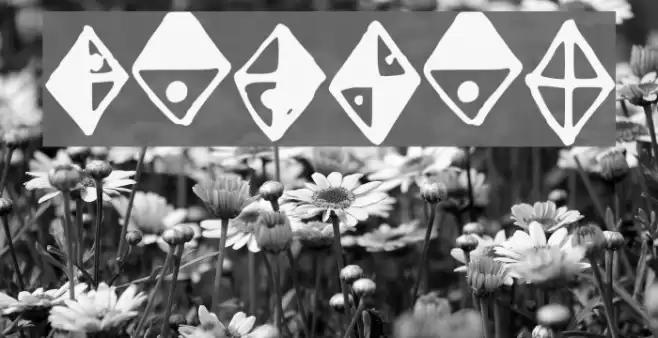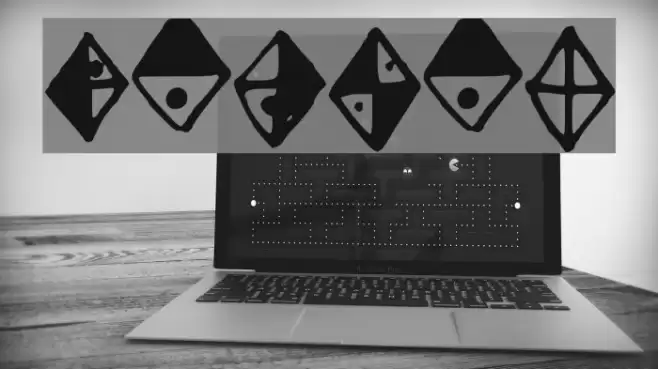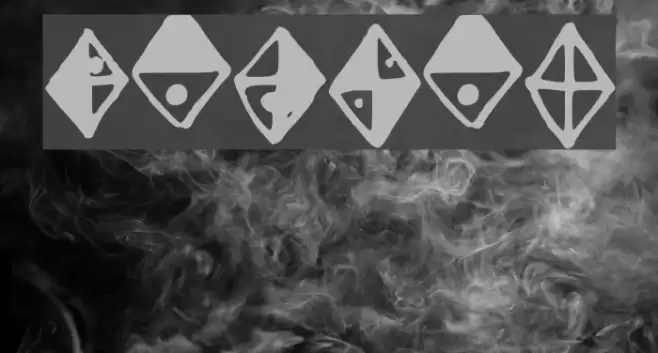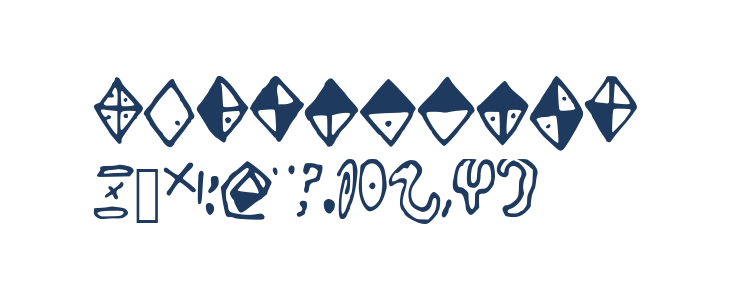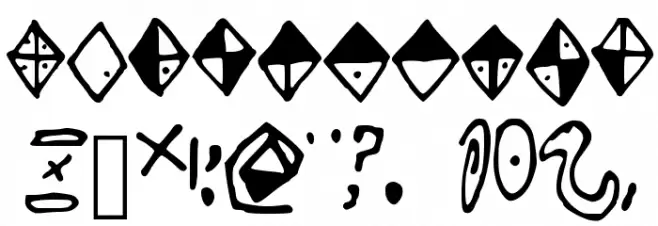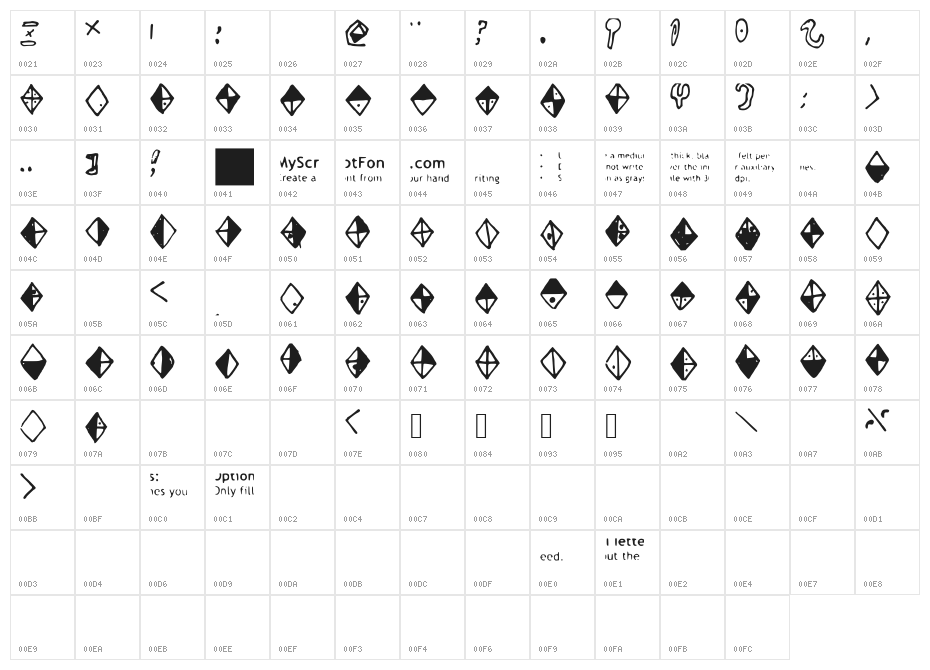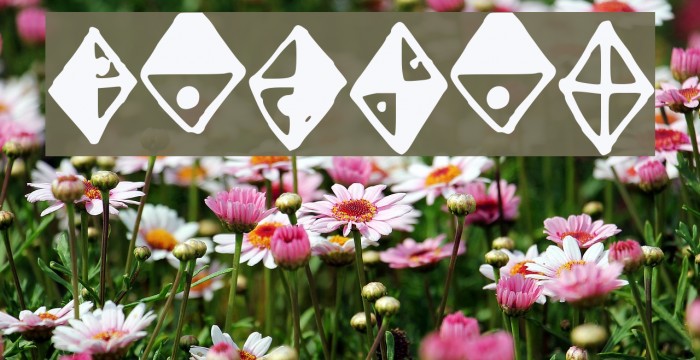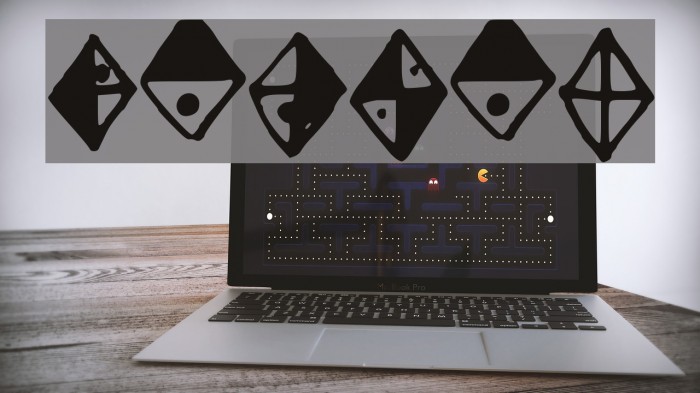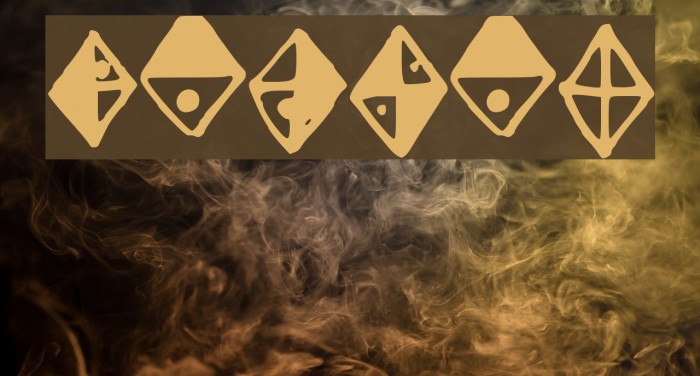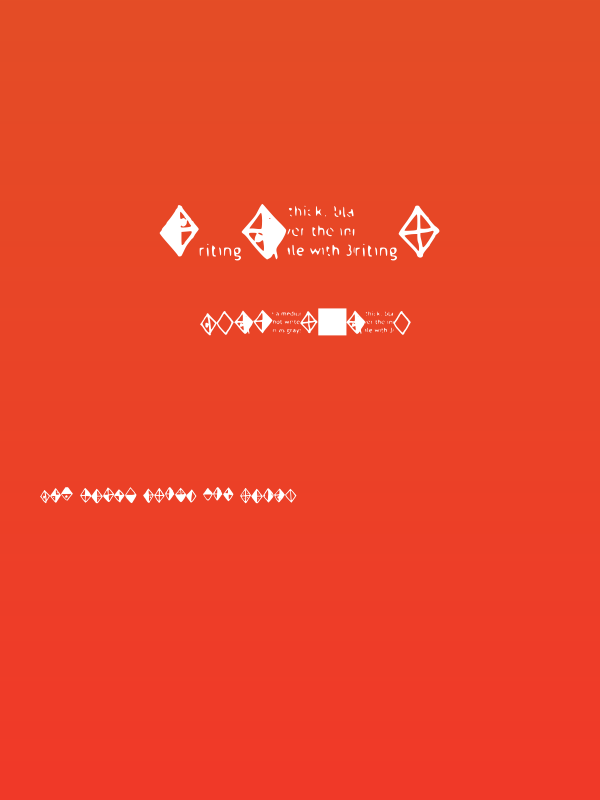
Zepher Font
Zepher Description
This font features a highly abstract and geometric design, with each character resembling a diamond shape containing various patterns and cutouts. The style is unconventional and artistic, making it stand out with its unique visual appeal. The characters are bold and filled, with a consistent use of black and white contrast. This font does not follow traditional letterforms, instead opting for a creative and decorative approach that prioritizes visual intrigue over readability.
An abstract, geometric font with diamond-shaped characters and bold, artistic patterns from Uncategorized fonts.
- Proposed Projects: Ideal for artistic projects, abstract art pieces, modern graphic designs, and creative branding that seeks to make a bold statement.